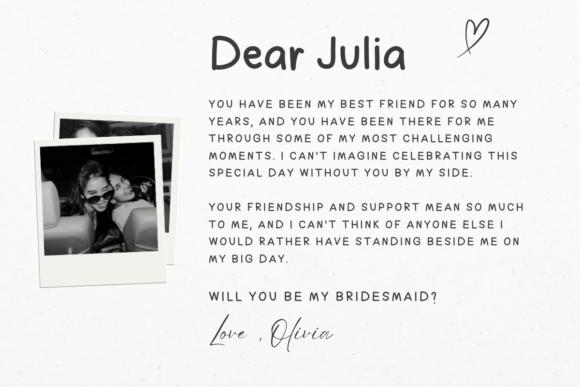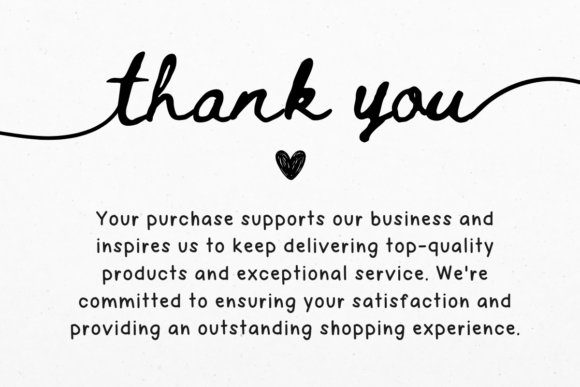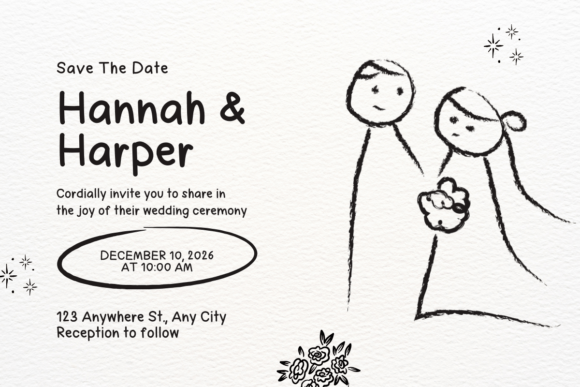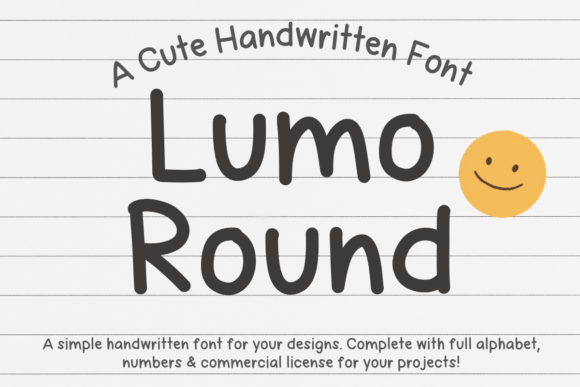
Introduction to Lumo Round Font
Experience a delightful blend of simplicity and whimsy with Lumo Round, a contemporary, rounded sans serif typeface.
Its playful character is conveyed through seamless curves and harmonious proportions without jeopardizing sophistication or maturity Lumo Round embodies a warm, congenial aura enhanced by its monoline strokes and rounded terminals, which effortlessly ensure superior readability.